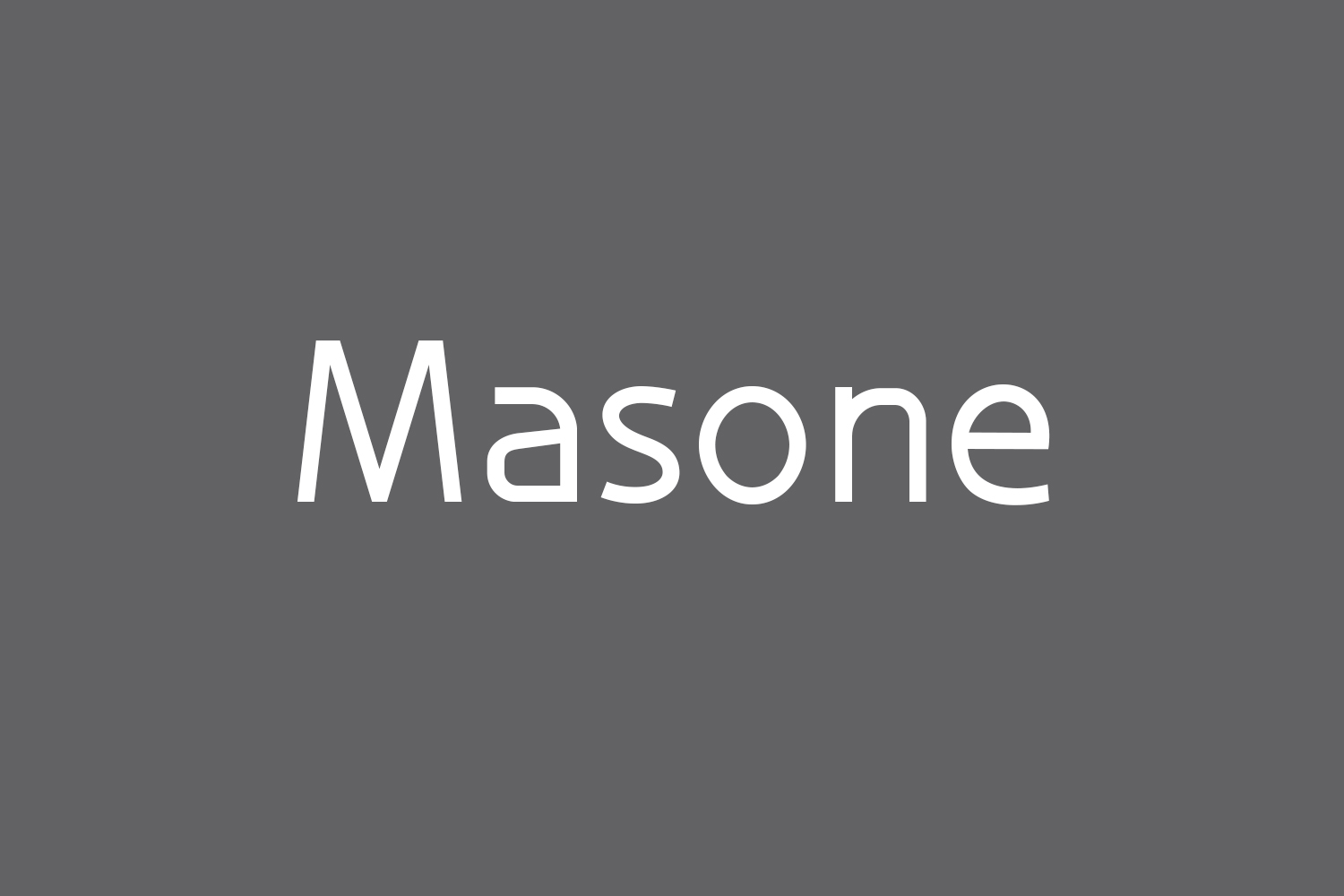
Masone Free Font is an elegant and modern sans serif font that exudes sophistication and class. With its clean lines and subtle curves, it adds a touch of refinement to any design project. The font is highly legible, making it perfect for both digital and print applications. Whether you’re designing a website, creating a brochure, or crafting a logo, Masone Free Font is sure to elevate your design to the next level.